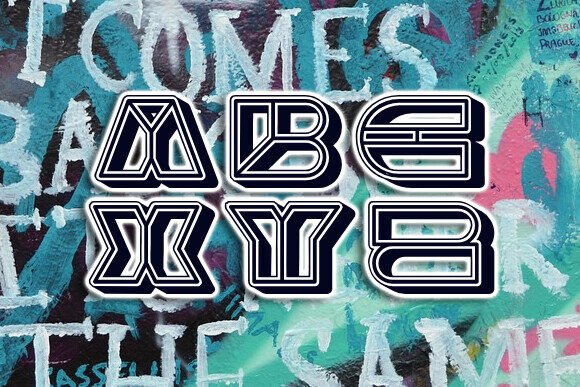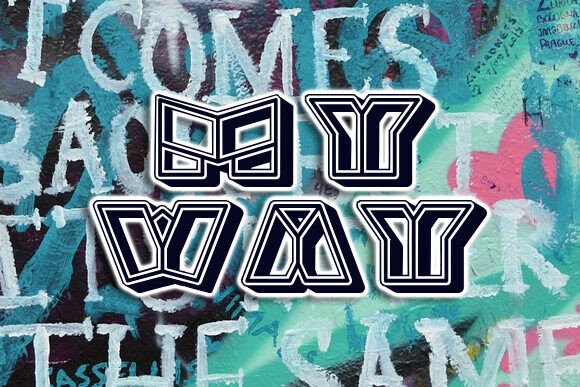
Introducing Empty Space Font: Elevate Your Designs with Elegance
Are you a designer or crafter looking for the perfect font to add a touch of sophistication to your projects? Look no further than Empty Space Font, a stunning and elegant typeface that is sure to elevate your designs to the next level. In this article, we’ll explore the features and benefits of Empty Space Font, and show you how to make the most of this versatile and beautiful font.
What is Empty Space Font?
Empty Space Font is a unique and elegant font that is perfect for designers and crafters who want to add a touch of class to their projects. With its clean lines, subtle curves, and sophisticated style, Empty Space Font is ideal for a wide range of design applications, from posters and flyers to t-shirts and other merchandise.
Key Features of Empty Space Font
- Elegant Design: Empty Space Font features a sleek and sophisticated design that is sure to impress. Its clean lines and subtle curves make it perfect for designs that require a touch of elegance.
- Versatile: Empty Space Font is a versatile font that can be used for a wide range of design applications, from posters and flyers to t-shirts and other merchandise.
- Easy to Read: Despite its elegant design, Empty Space Font is easy to read, making it perfect for designs that require a clear and concise message.
- High-Quality: Empty Space Font is a high-quality font that is designed to produce crisp and clear results, even at small sizes.
How to Use Empty Space Font
Empty Space Font is easy to use and can be incorporated into your designs in a variety of ways. Here are a few ideas to get you started:
- Posters: Use Empty Space Font to create stunning posters that are sure to grab attention. Its elegant design and easy readability make it perfect for posters that require a clear and concise message.
- Flyers: Add a touch of sophistication to your flyers with Empty Space Font. Its clean lines and subtle curves make it perfect for designs that require a professional look and feel.
- T-Shirts: Use Empty Space Font to create stylish and elegant t-shirts that are sure to impress. Its high-quality design and easy readability make it perfect for designs that require a clear and concise message.
Benefits of Using Empty Space Font
There are many benefits to using Empty Space Font in your designs. Here are a few:
- Stand Out from the Crowd: With its unique and elegant design, Empty Space Font is sure to help your designs stand out from the crowd.
- Professional Look and Feel: Empty Space Font is designed to produce a professional look and feel, making it perfect for designs that require a high level of sophistication.
- Easy to Use: Empty Space Font is easy to use and can be incorporated into your designs in a variety of ways.
- High-Quality Results: Empty Space Font is designed to produce high-quality results, even at small sizes.
In conclusion, Empty Space Font is a stunning and elegant typeface that is perfect for designers and crafters who want to add a touch of sophistication to their projects. With its clean lines, subtle curves, and sophisticated style, Empty Space Font is ideal for a wide range of design applications, from posters and flyers to t-shirts and other merchandise. Whether you’re looking to create a professional-looking design or simply want to add a touch of elegance to your project, Empty Space Font is the perfect choice.